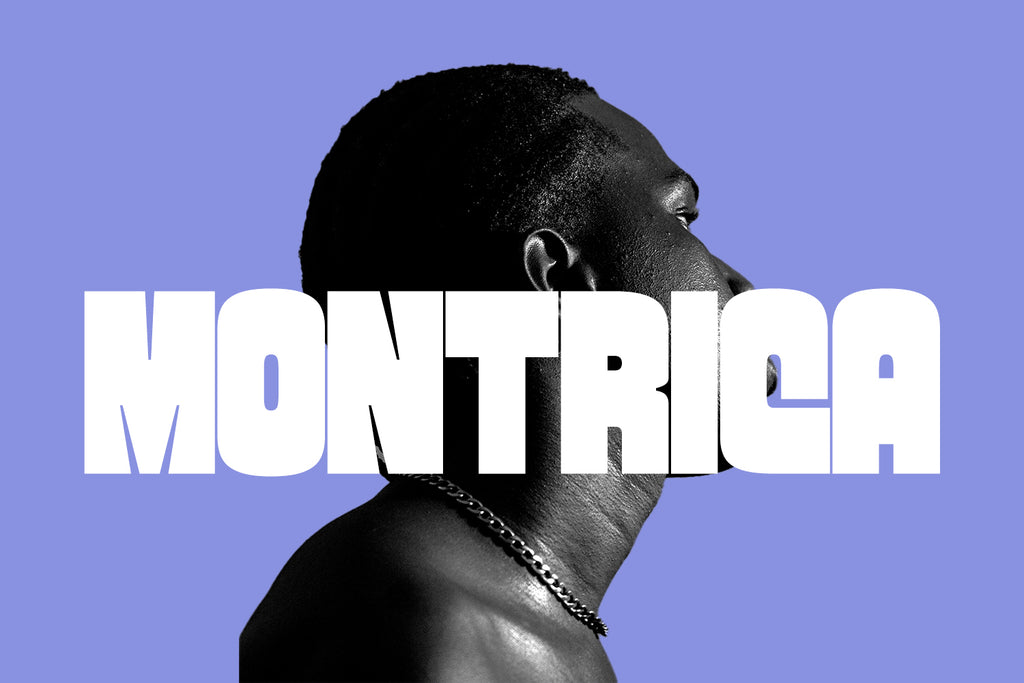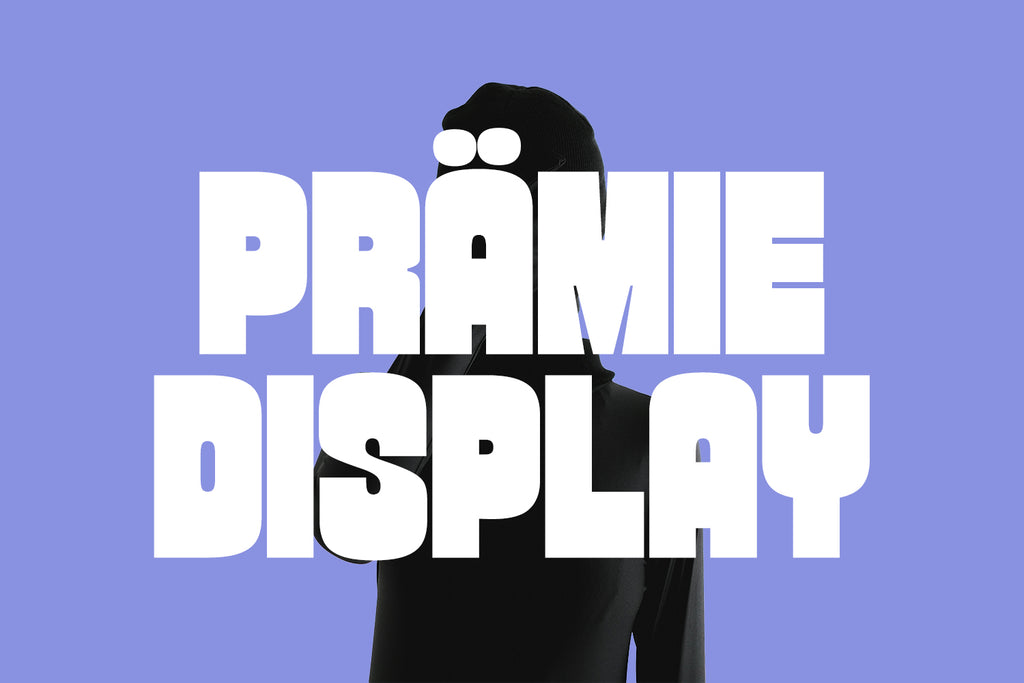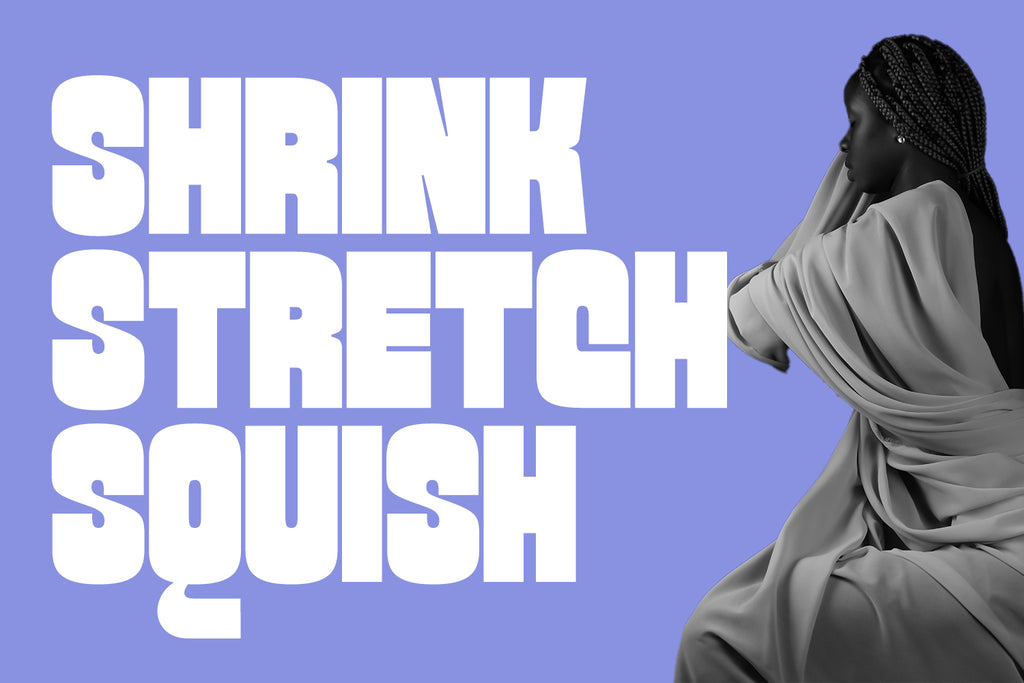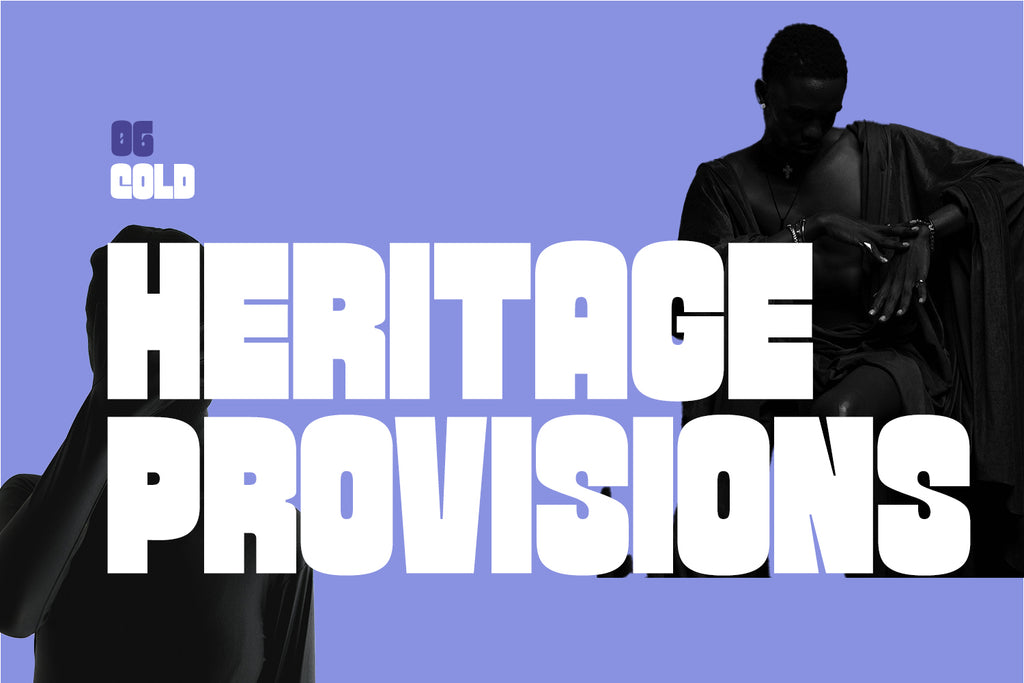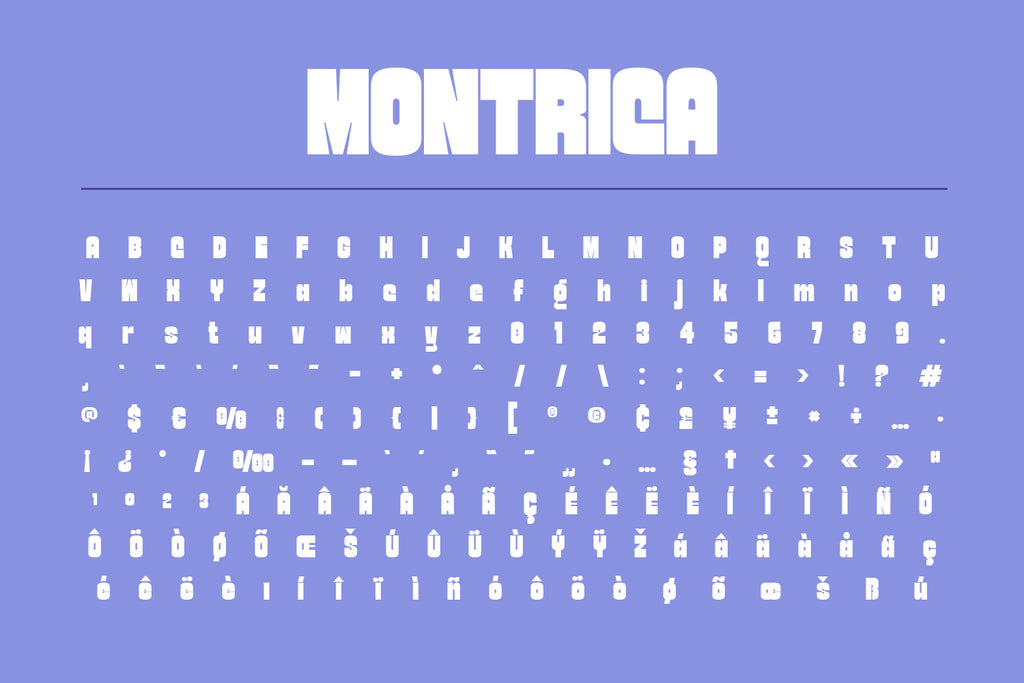
Montrica Display
Montrica – Bold Modern Display Font
Montrica is a bold and powerful display typeface designed to make a statement. With its strong geometric forms, condensed proportions, and smooth curves, this font is perfect for creating eye-catching headlines, posters, branding, packaging, social media graphics, and more.
Features:
- Numerals, extended punctuation & Basic Symbols(200+ Glyphs).
- Uppercase Letters & Lowercase Letters